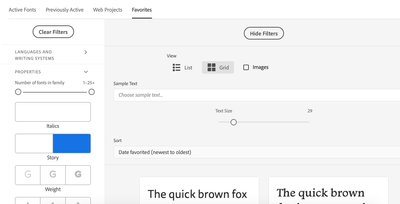
I noticed a new "story" property in the filters menu when browsing my favourites fonts. There is no pictogram or way to discern what it is used for. (See the two states below.)
Welcome to the Community Forum. Thank you for noticing and updating us about this. The story filter is to choose between different styles of the letter A. For now, unfortunately, we have a User Interface bug. It should show you the two versions of the letter "A". The Engineering Team is looking into this and will be resolved soon. I would appreciate your patience.
It's what we called in BrEn Storey, as in floors of a building, story is a bit confusing!
for lower case a and g